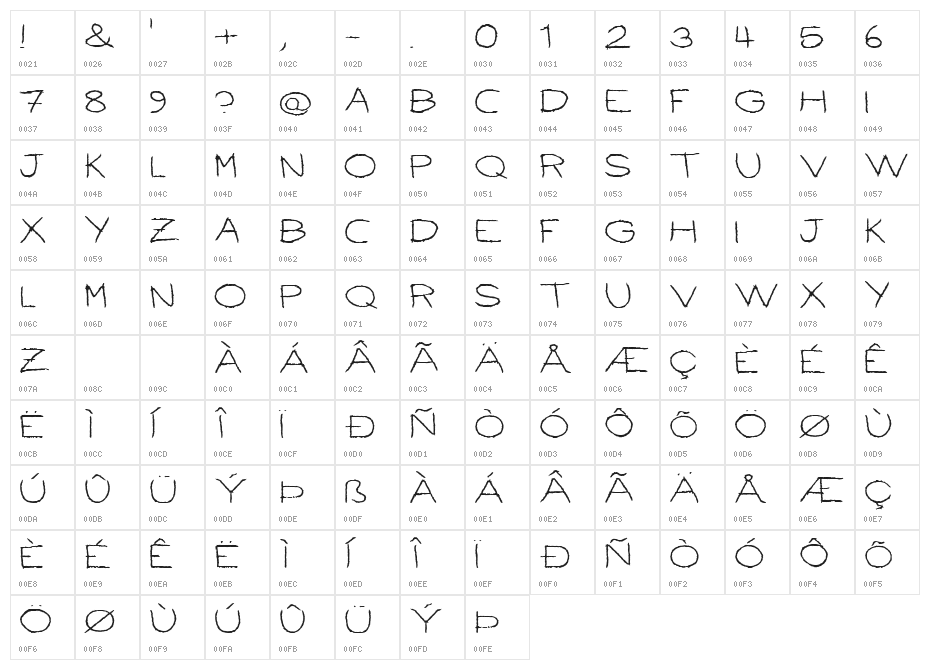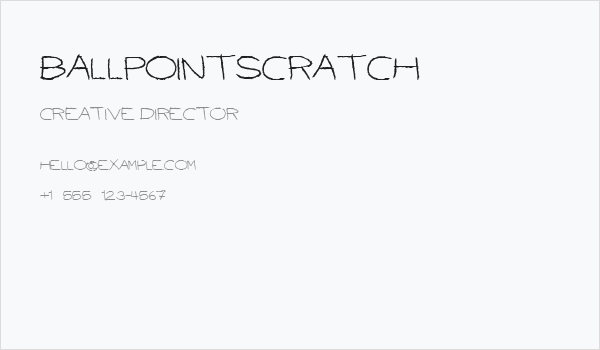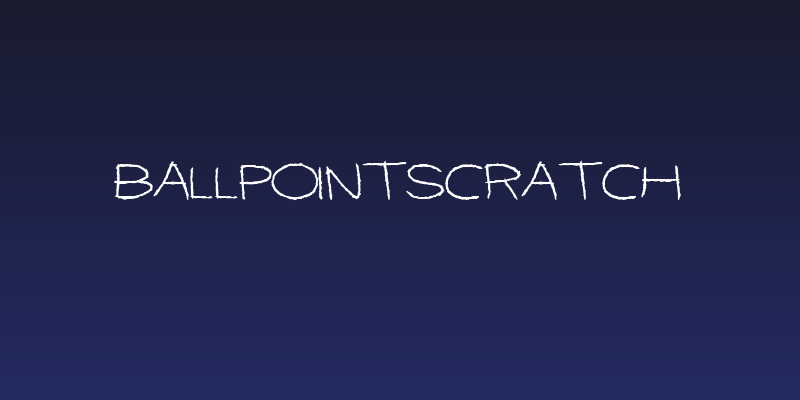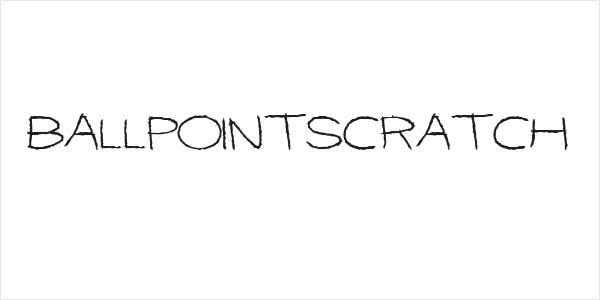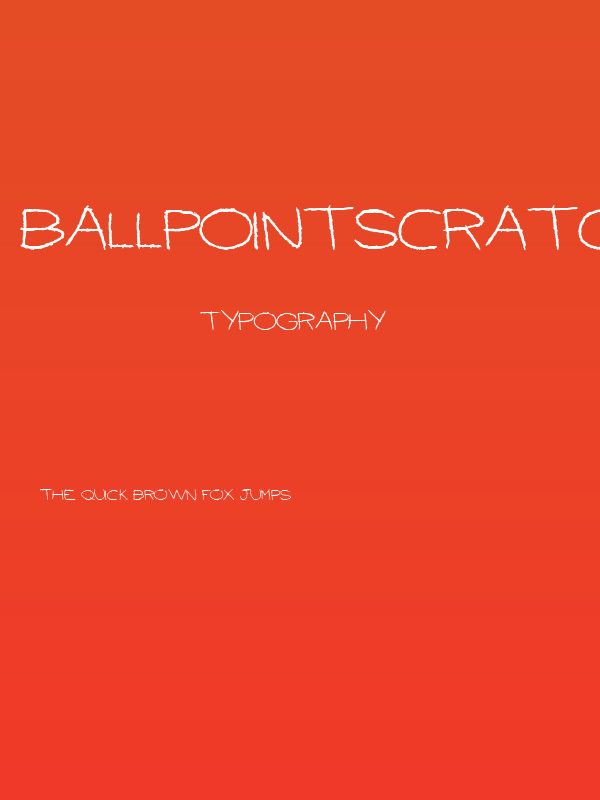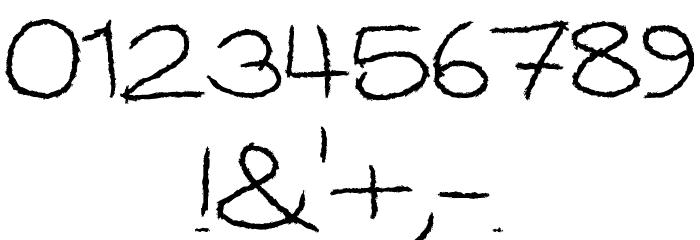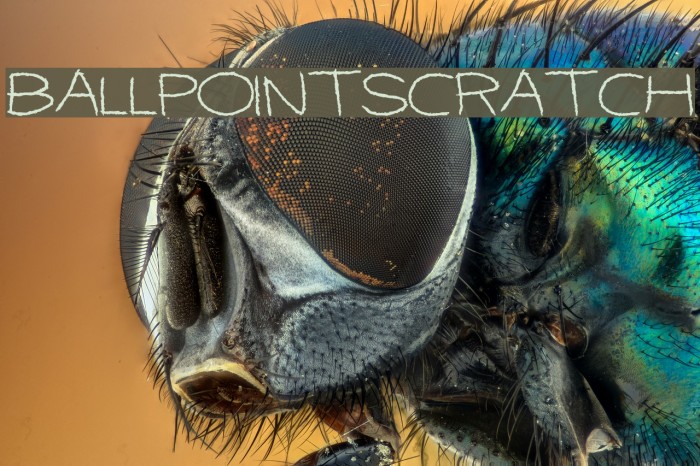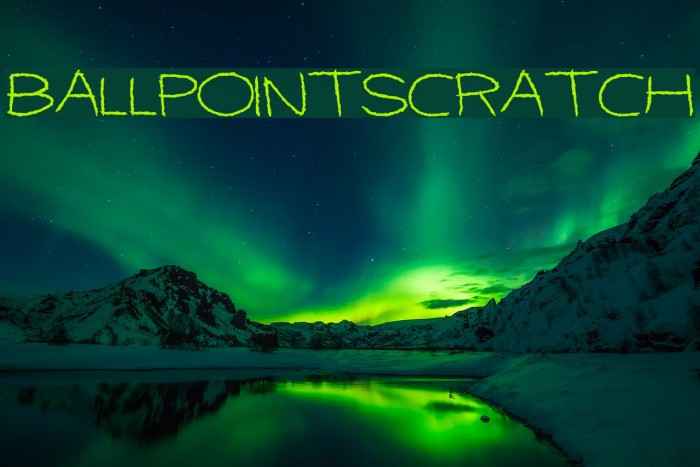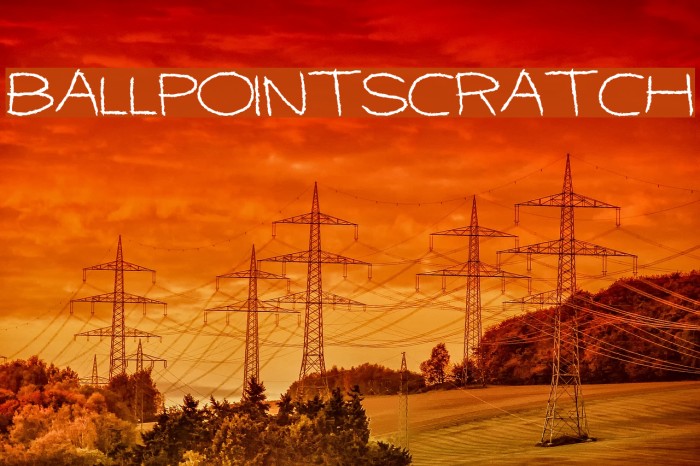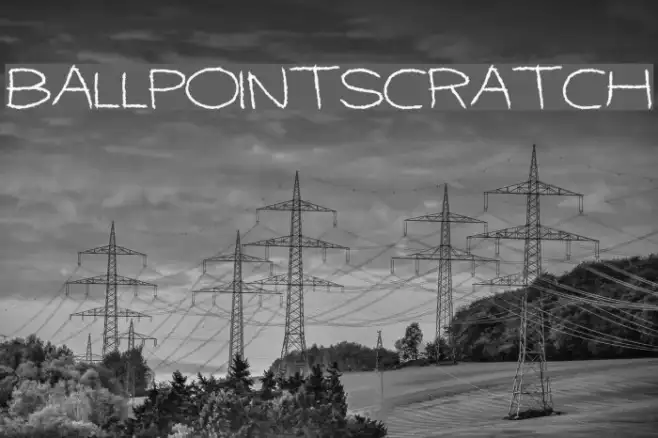
BallpointScratch Font
BallpointScratch Description
This font features a distinctive, hand-drawn appearance reminiscent of casual ballpoint pen writing. The characters are slightly irregular, giving them a playful and informal feel. The strokes are uneven, with a scratchy texture that adds to its charm. Each letter maintains a consistent height, though the width varies slightly, enhancing the handwritten effect. The numbers and special characters follow the same style, ensuring a cohesive look across all elements. This font is ideal for projects that require a personal touch, such as greeting cards, invitations, or creative posters.
| Overall Style | Casual, Playful |
| Use Case | Creative projects, informal text, personal branding. |
| Proposed Projects | Greeting cards, invitations, creative posters, children's books, casual branding. |